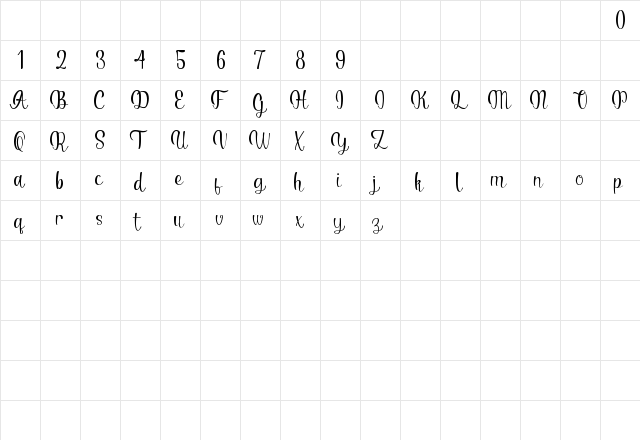
Serenita Script
Script ·  Dimas Prasetyo ·
StyleScript
DesignerDimas Prasetyo
Design Context for Serenita Typeface
Serenita brings a calligraphic fluidity to the page — its connecting strokes and expressive curves give it an unmistakably human quality.